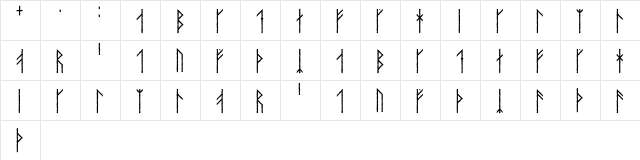
Orkahaug Regular
| Designer | Feزag Nic BhrӤe |
Design Context for Orkahaug Typeface
Orkahaug takes a measured approach to typography — its balanced proportions and neutral character make it a reliable workhorse for both digital and print work.